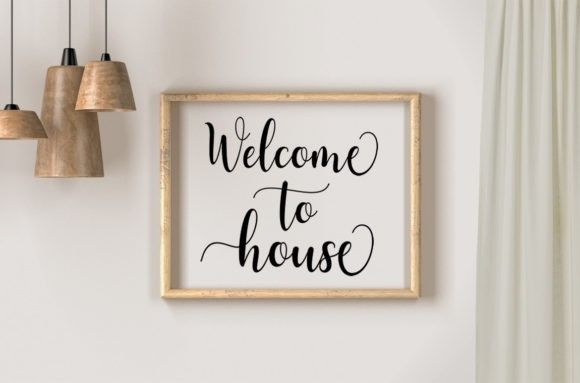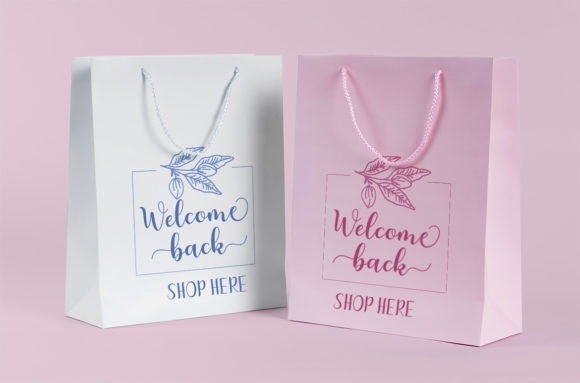
Bartleen Script Font
Bartleen Script Font, is a two styled and beautiful handwritten font with characters that dance along the baseline. This font is PUA encoded which means you can access all of the amazing glyphs and ligatures with ease!